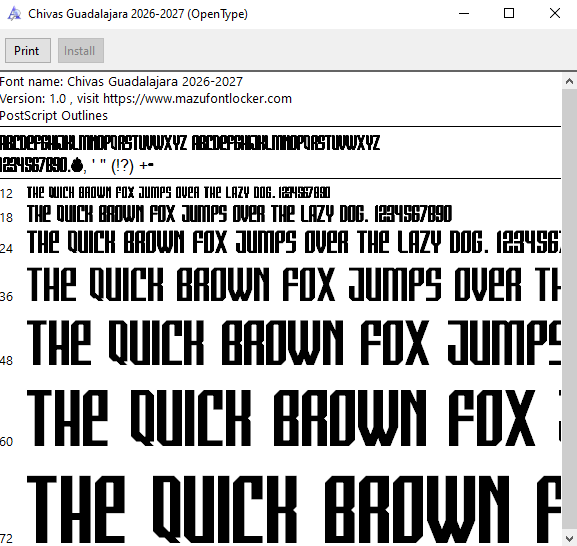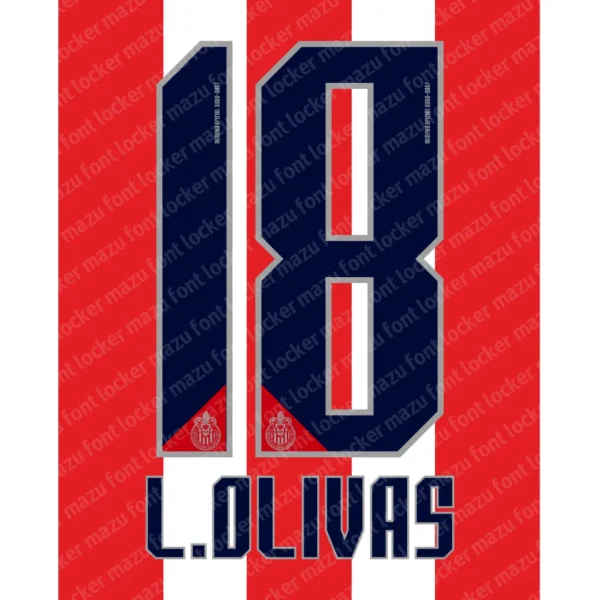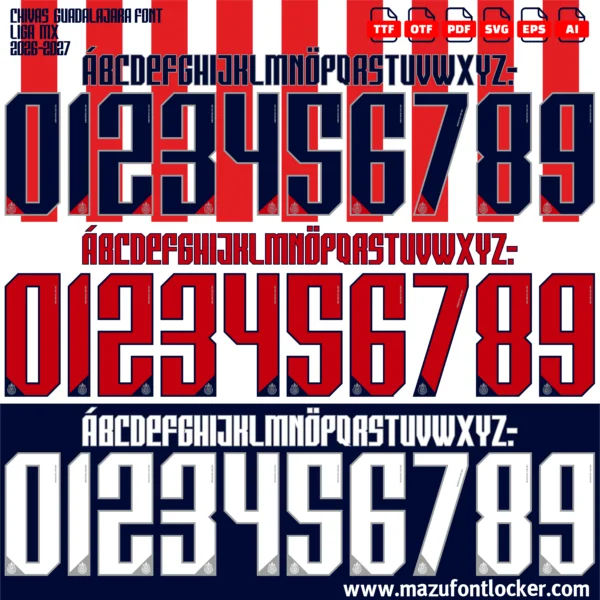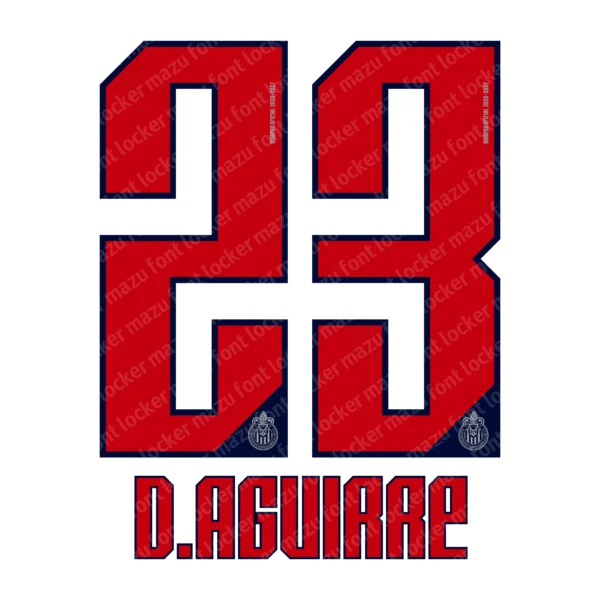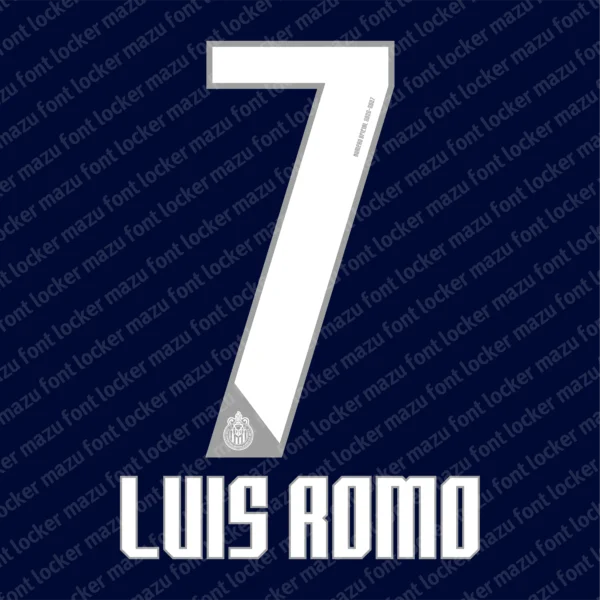
The Chivas Guadalajara 2026-2027 Font Vector is a premium typeface that accurately recreates the official match lettering worn by Chivas Guadalajara during the 2026-2027 season. This high-quality vector font kit captures the bold, passionate, and instantly recognizable typography that perfectly complements the club’s iconic red and white identity.
Designed for professional designers, football enthusiasts, and passionate Chivas supporters, the Chivas Guadalajara 2026-2027 Font Vector delivers exceptional authenticity for creating realistic jersey mockups, football merchandise, social media graphics, match posters, and custom fan artwork. Every character has been carefully recreated to match the classic visual style of one of Mexico’s most historic and popular football clubs.
This font stands out thanks to its precise vector construction and authentic club styling. Every letter and numeral has been meticulously recreated to match the official shirt lettering used throughout the 2026-2027 Liga MX and Copa MX campaign. Whether you’re producing professional kit templates or creating eye-catching football content, the Chivas Guadalajara 2026-2027 Font Vector delivers a genuine match-ready appearance.
The lettering featured in the Chivas Guadalajara 2026-2027 Font Vector combines clean geometric lines with powerful modern proportions. The result is a premium and highly readable typeface that reflects Chivas Guadalajara’s fighting spirit, proud tradition, and loyal fanbase known as the “Rebaño Sagrado”.
• Complete uppercase A–Z alphabet and numbers 0–9 in authentic Chivas Guadalajara 2026-2027 style
• Special Chivas Guadalajara badge glyph – Press the “:” (Colon) key to insert the club badge
• Includes authentic league badge glyph placement beneath player numbers
Chivas Guadalajara 2026-2027 Season